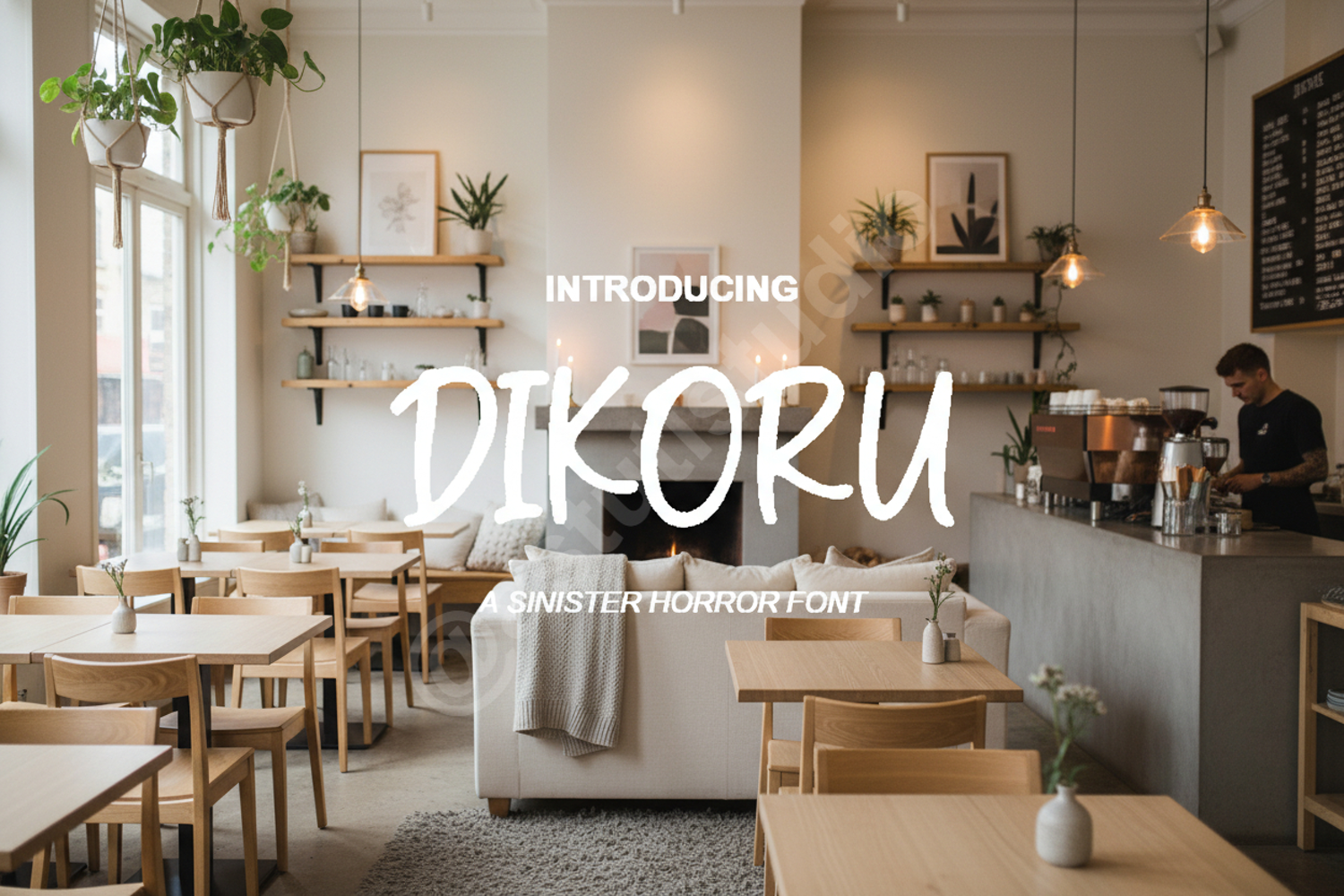
Dikoru - Elegant Modern Sans Serif Display
Dikoru
Introducing Dikoru, a premium sans serif font designed for modern aesthetics and timeless elegance. Crafted with precision, Dikoru balances clean lines with subtle unique touches, making it a versatile choice for designers seeking a sophisticated and professional look for their projects.
- Full uppercase and lowercase character set
- Numerals and Punctuation
- Branding and Identity: Create memorable logos and cohesive brand systems.
- Editorial Design: Perfect for headlines, magazine layouts, and book covers.
- Wedding Stationery: Add a modern touch to invitations and save-the-dates.
- Social Media: Elevate your digital presence with clean, readable typography.
- Luxury Packaging: Enhance product presentation with high-end appeal.